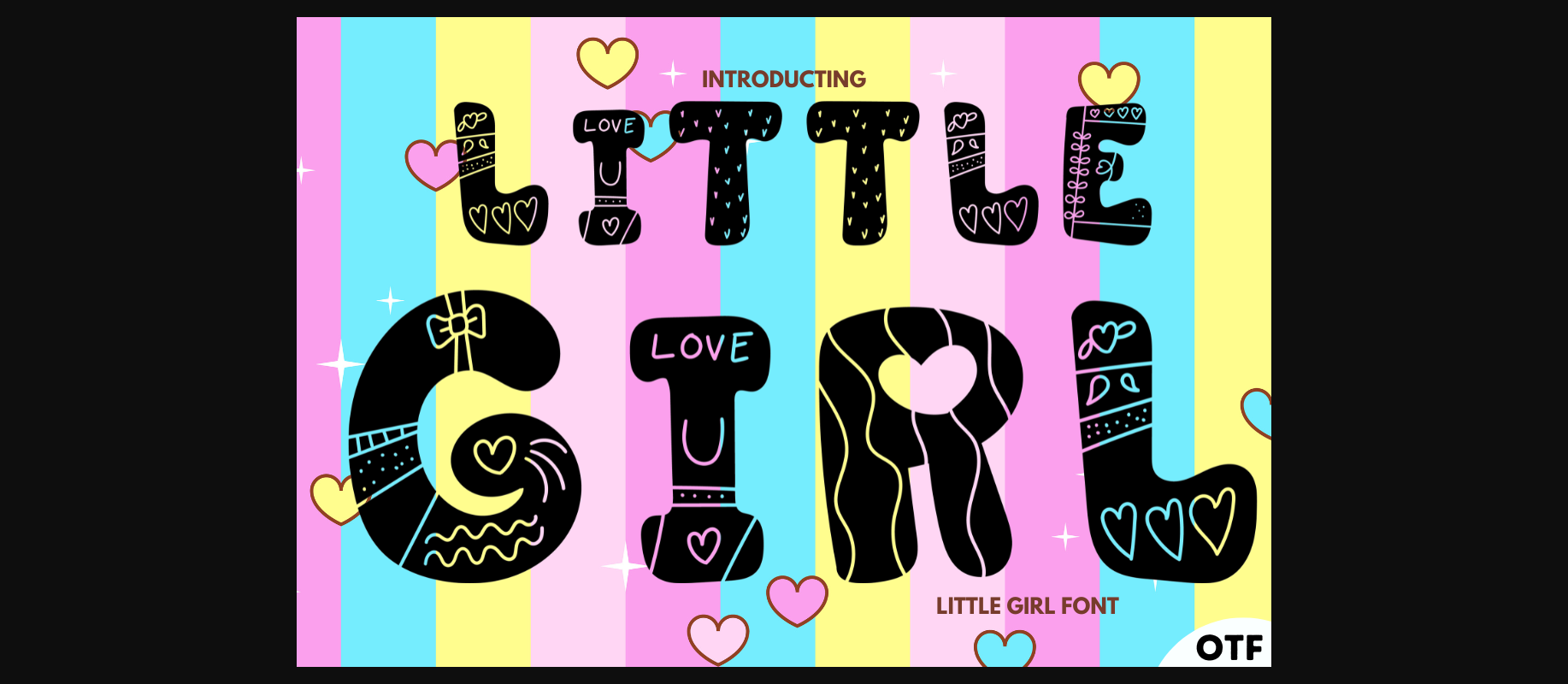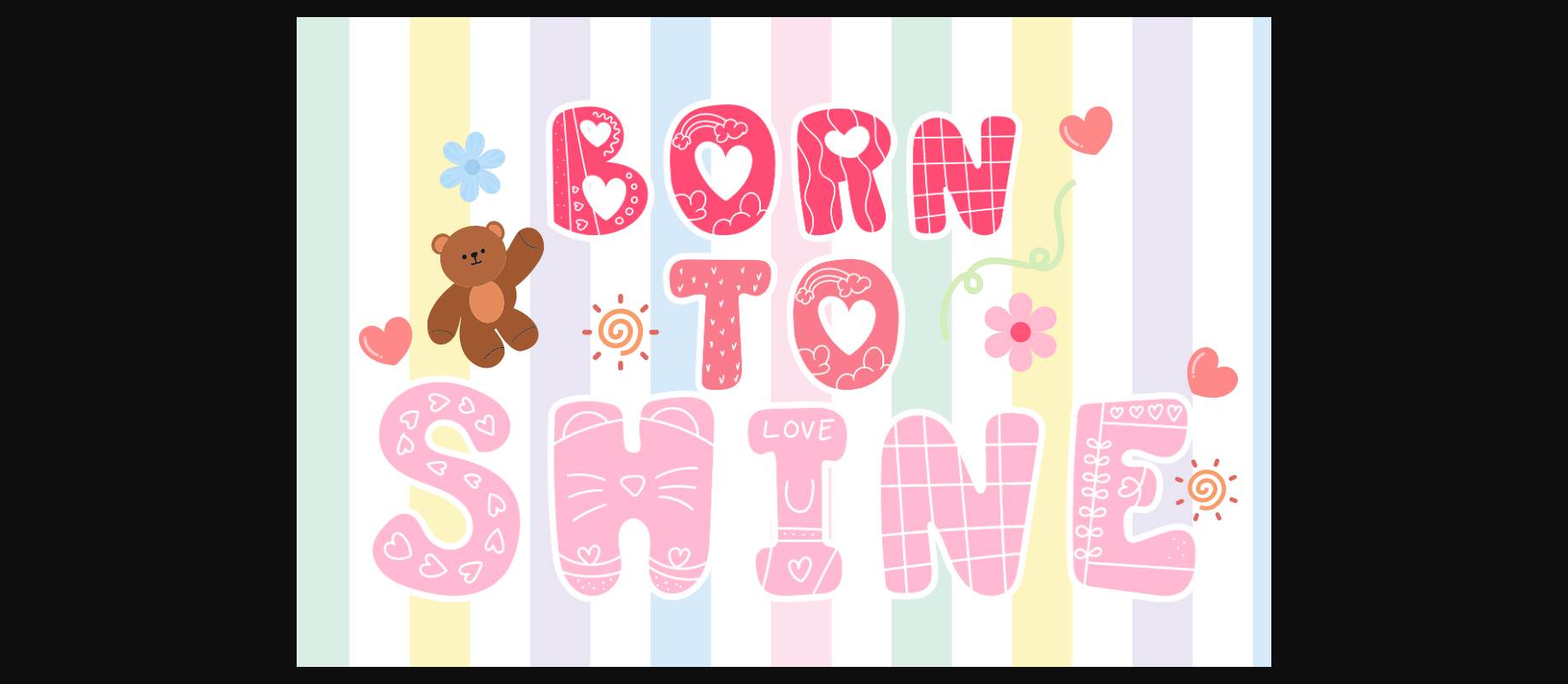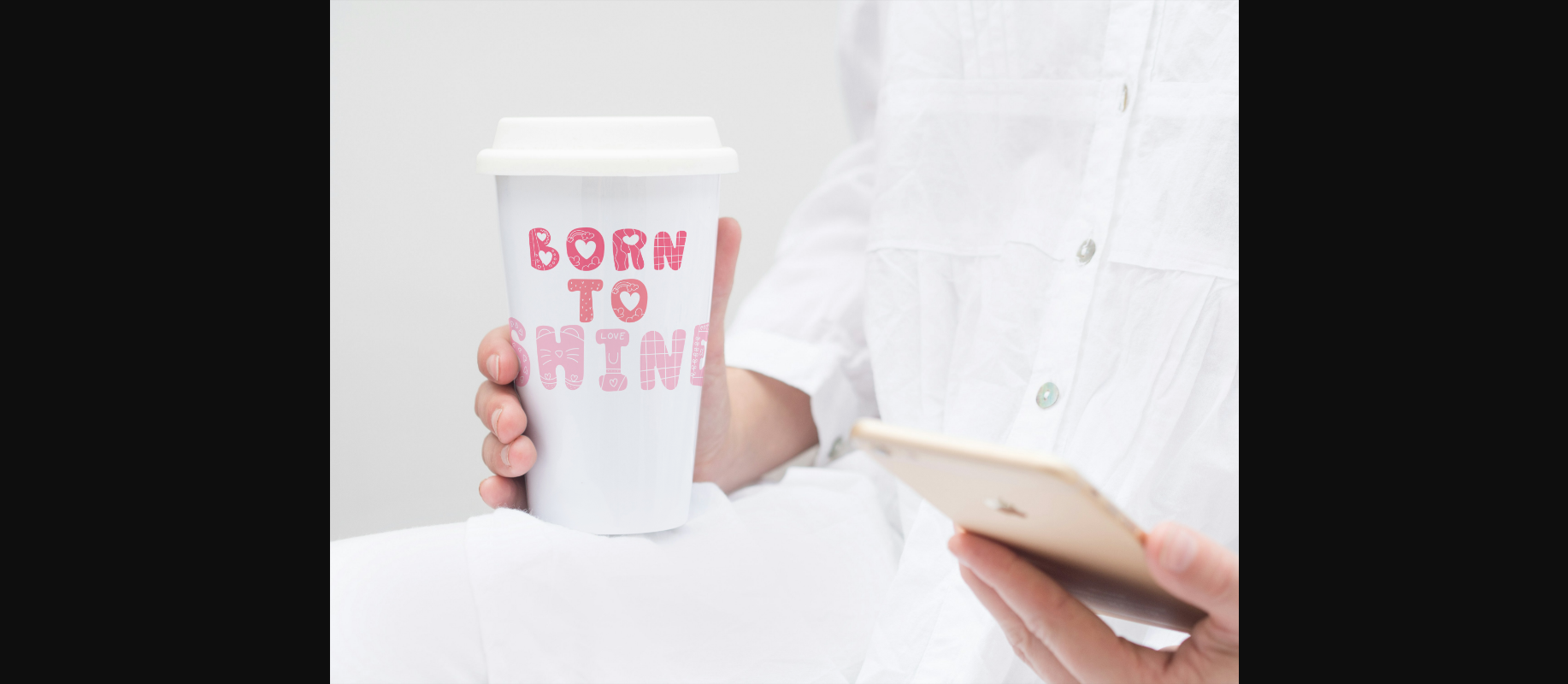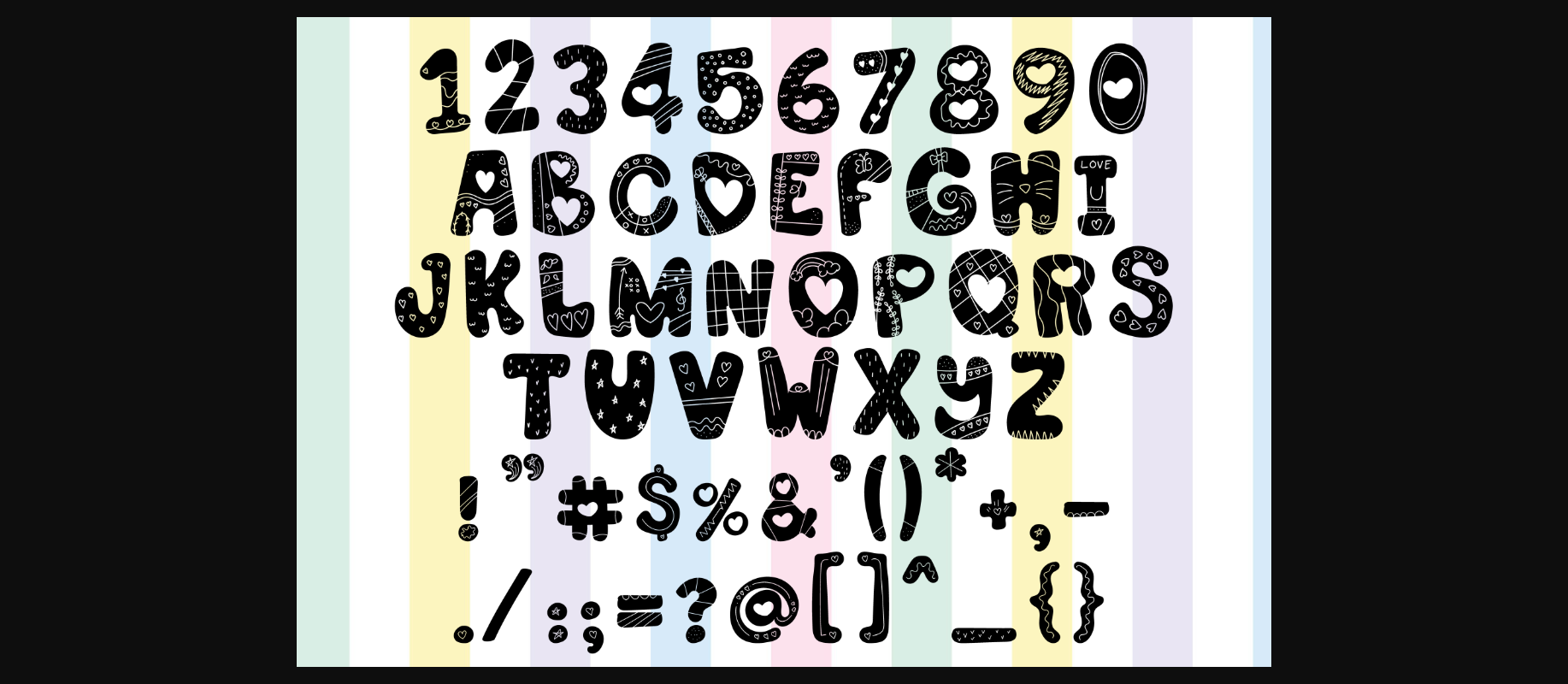
Little Girl Font
About Little Girl Font
Introducing Little Girl — a charming and cute typeface perfect for capturing the essence of a sweet girl theme, weekends, holidays, and various creative projects. This delightful alphabet is ideal for designing posters, invitations, headers, titles, greeting cards, lettering, and more. Elevate your designs with the endearing charm of this font, turning each piece into a visually engaging and creatively crafted expression. Transform your projects into a celebration of innocence, sweetness, and the joy of childhood with this uniquely designed and versatile font.